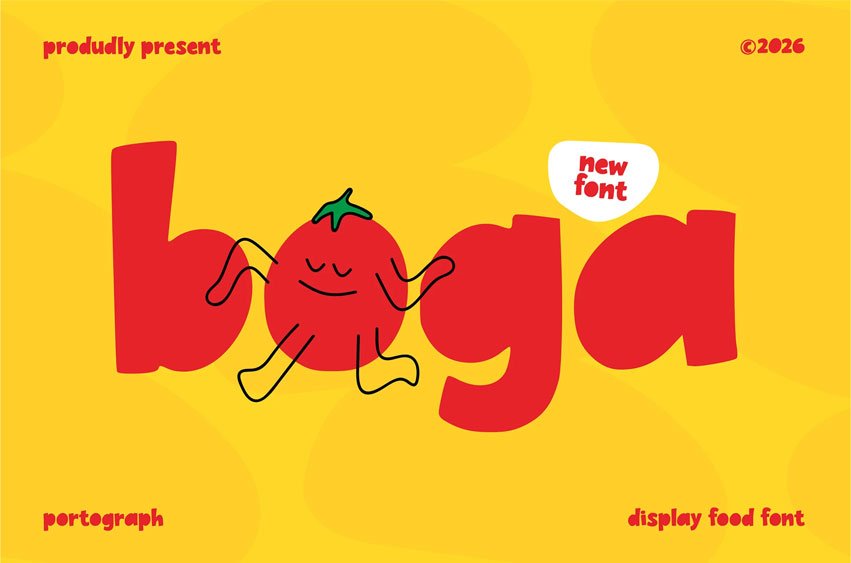
Boga Food Font is a playful bold display font designed to bring fun, energy, and personality into your creative projects. With its rounded shapes, quirky letterforms, and vibrant character, Boja is perfect for designs that need a cheerful and eye catching look.
Inspired by fast food branding and modern playful visuals, this font delivers a strong visual impact while keeping a friendly and approachable feel. It works beautifully for headlines, packaging, menus, and social media graphics.
Perfect For:
- Fast food branding
- Snack packaging
- Kids brand design
- Café menus
- Food promotions
- Social media content
- Poster headlines
- Product packaging
- Street food branding
- Fun advertising